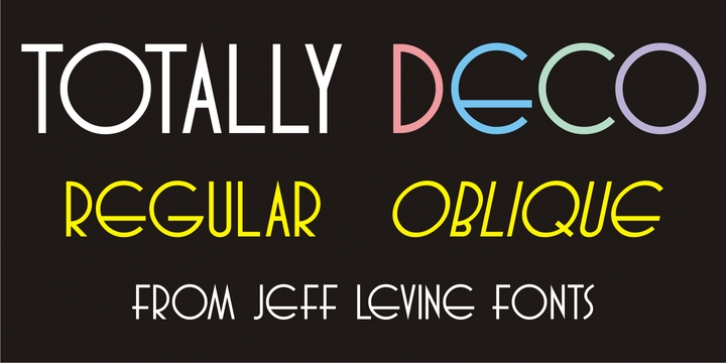
The hand lettered title found on the sheet music for 1938's "So Help Me (If I Don't Love You)" was the basis for Totally Deco JNL, which is available in both regular and oblique versions.
A classic mix of widely rounded letters and condensed letters typifies the design style of the Art Deco era.